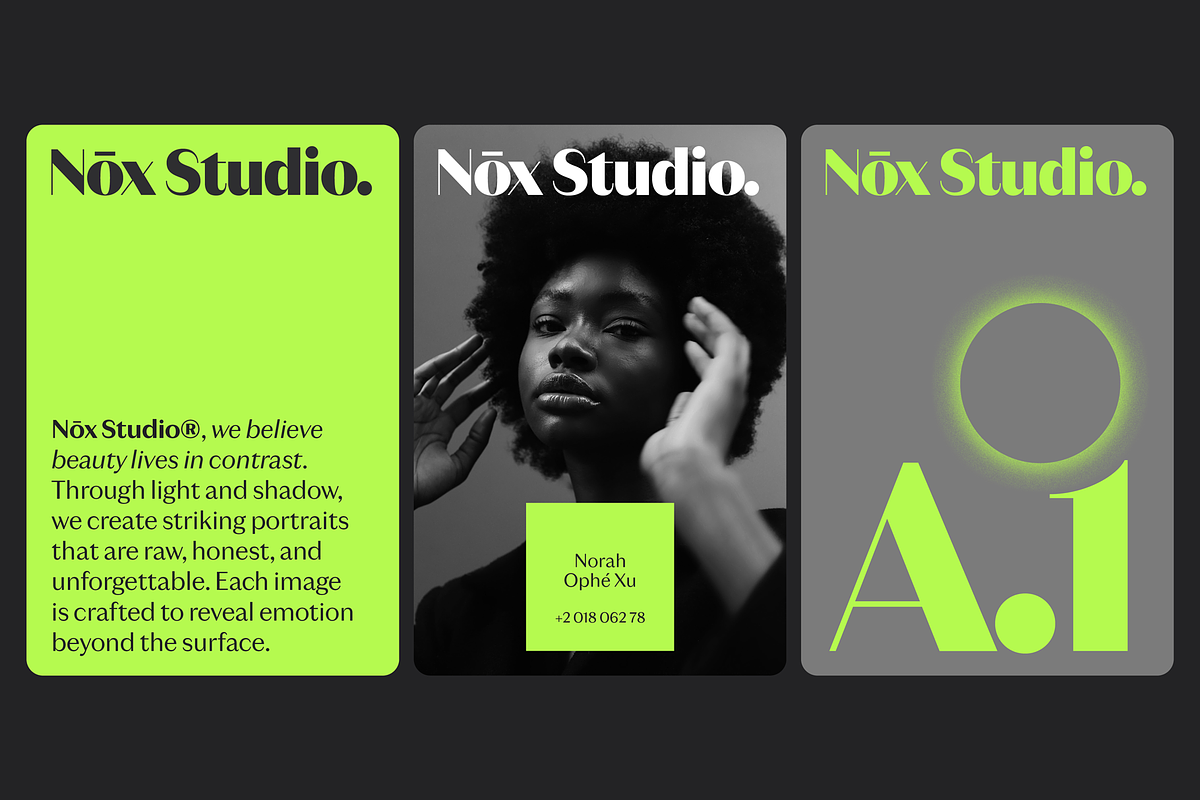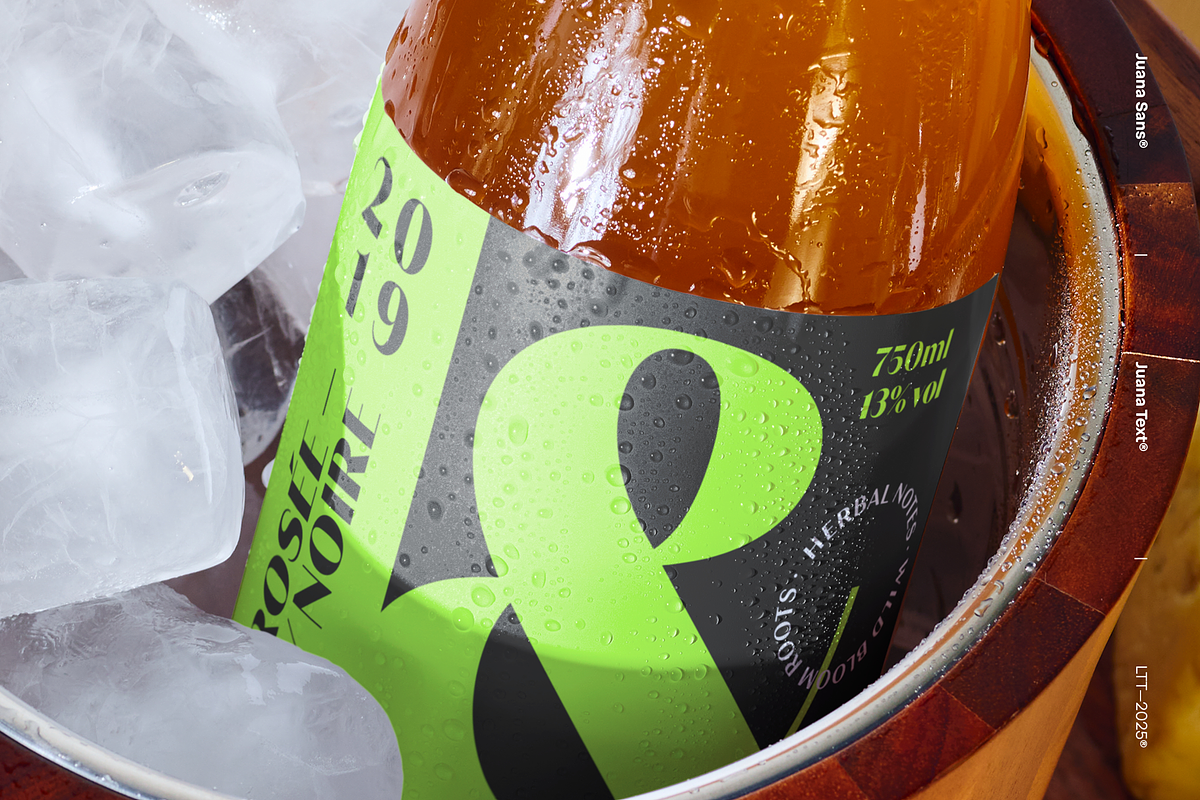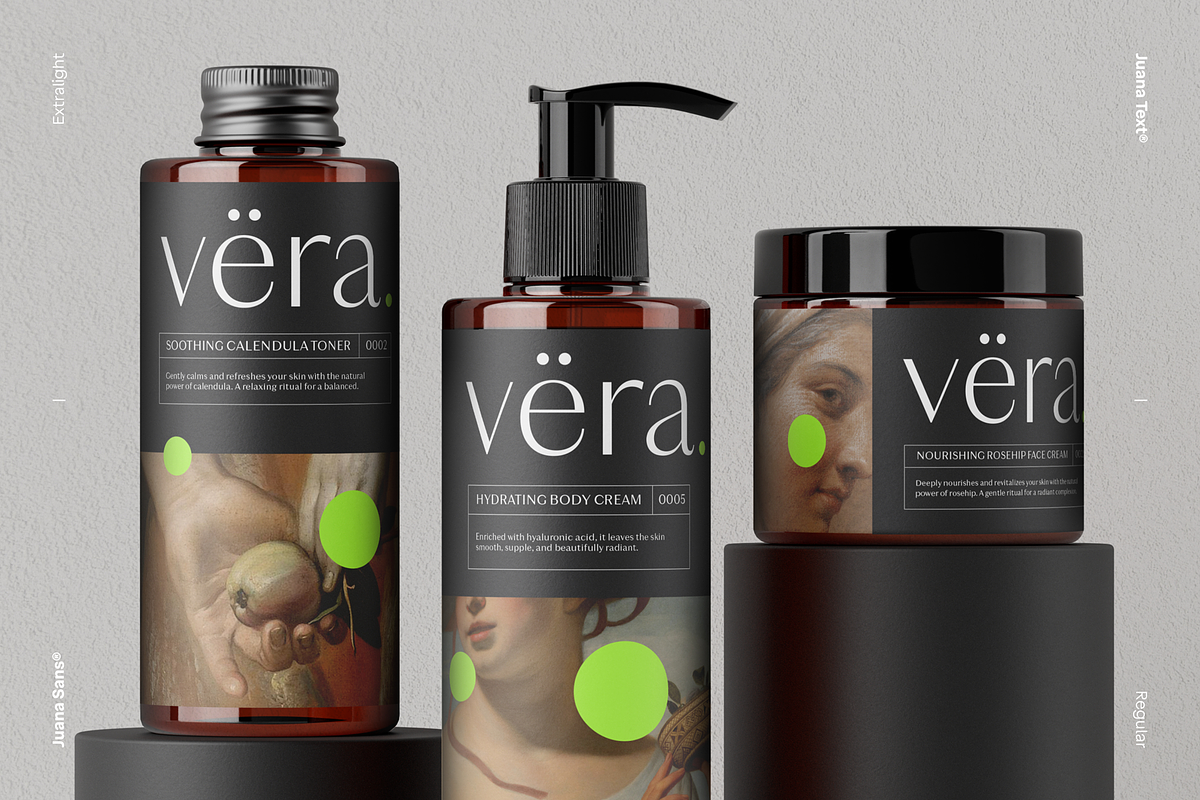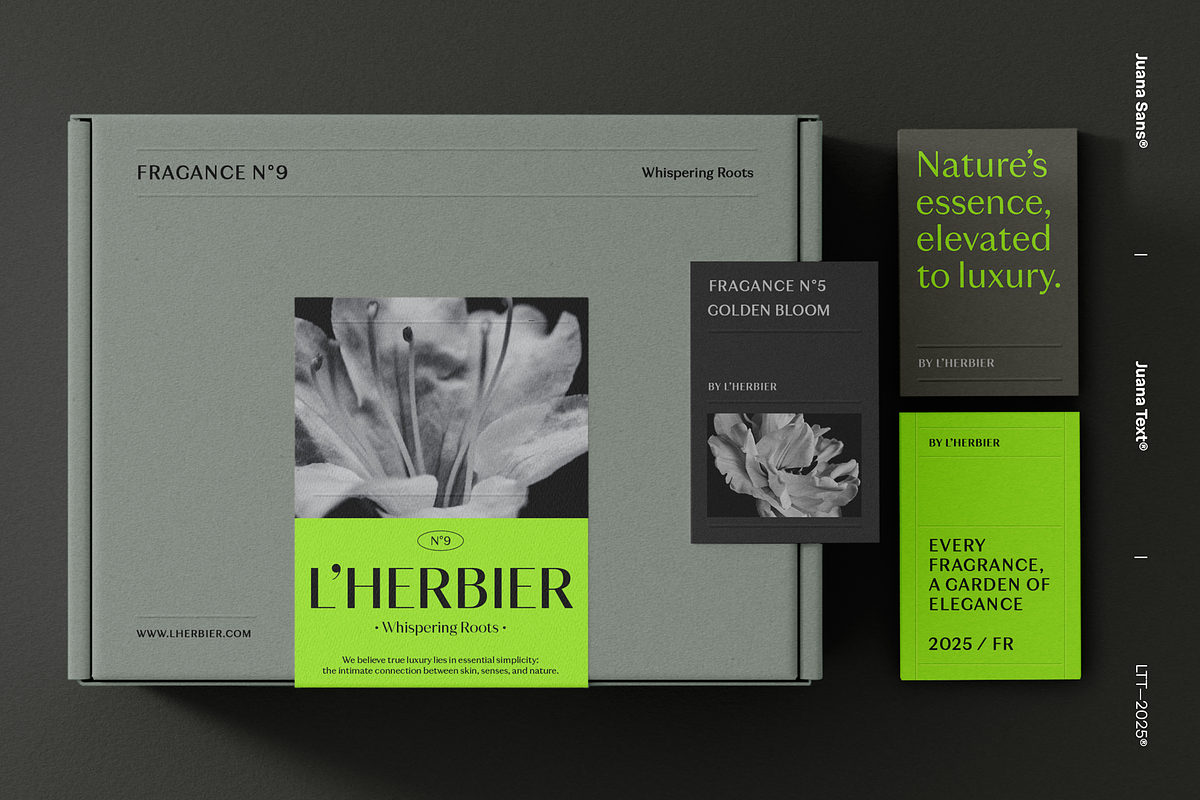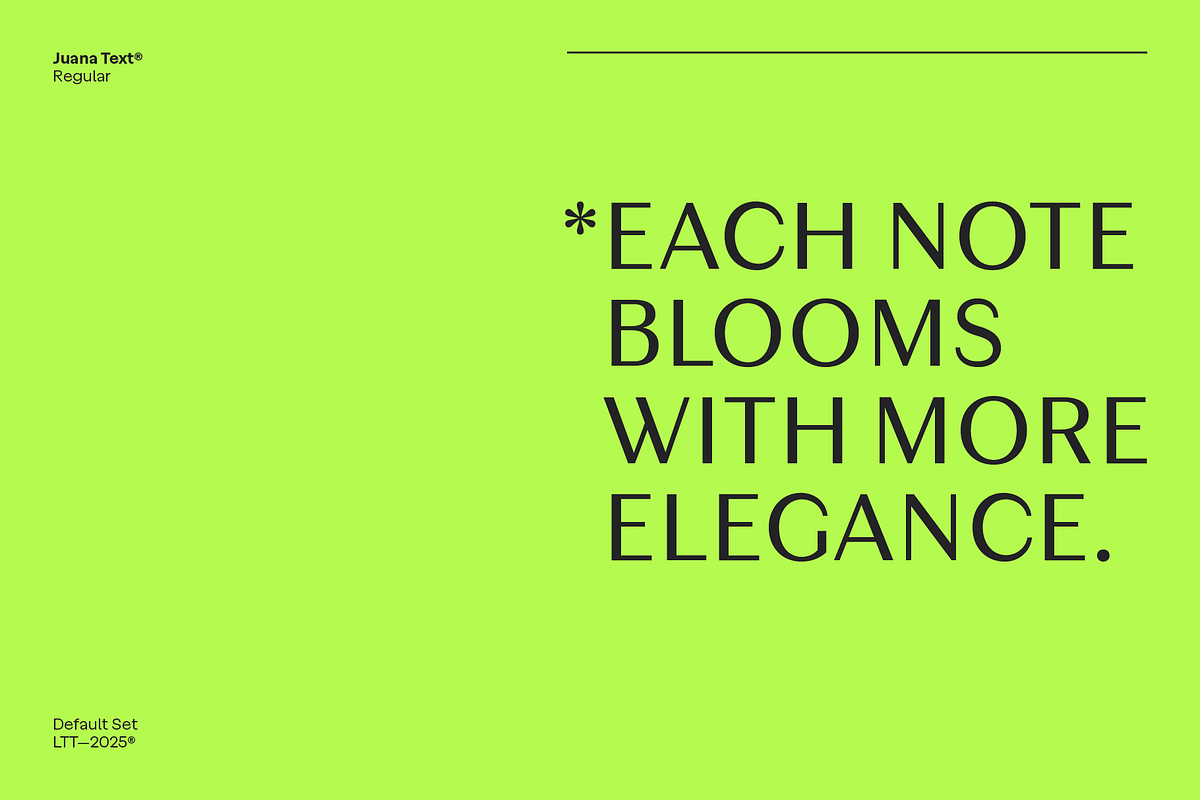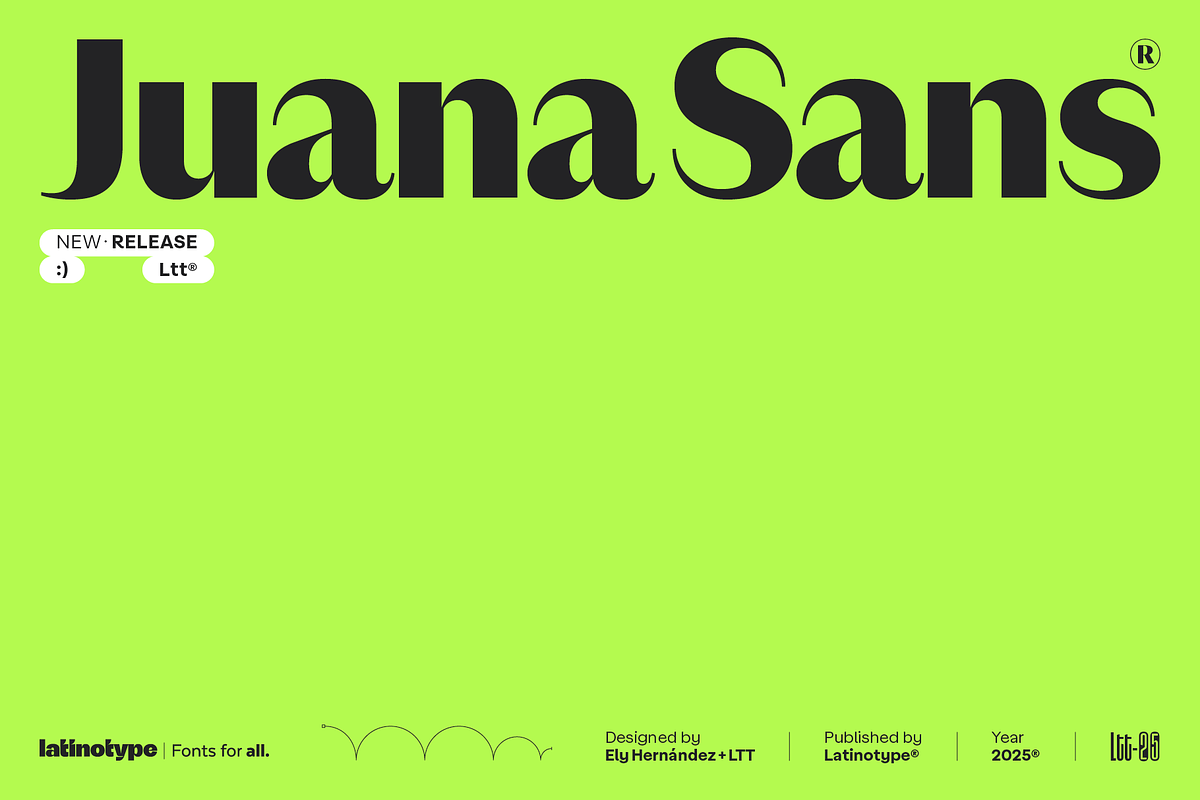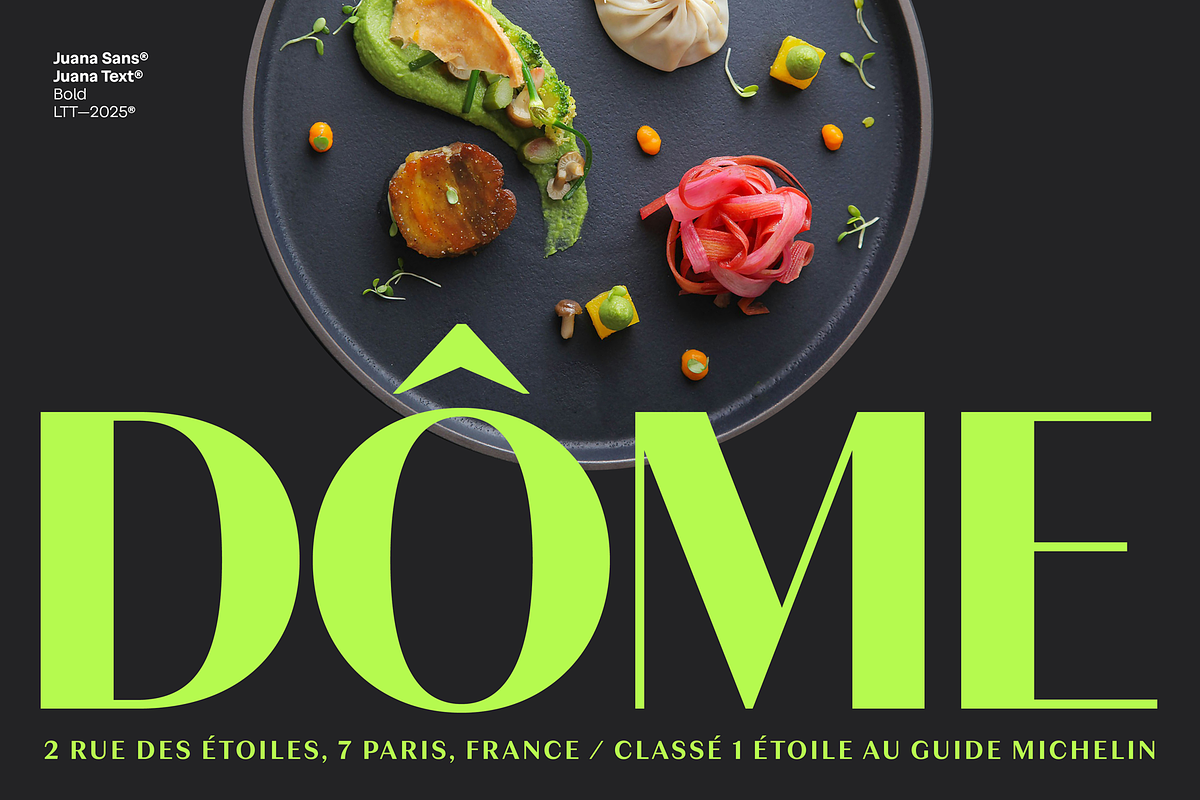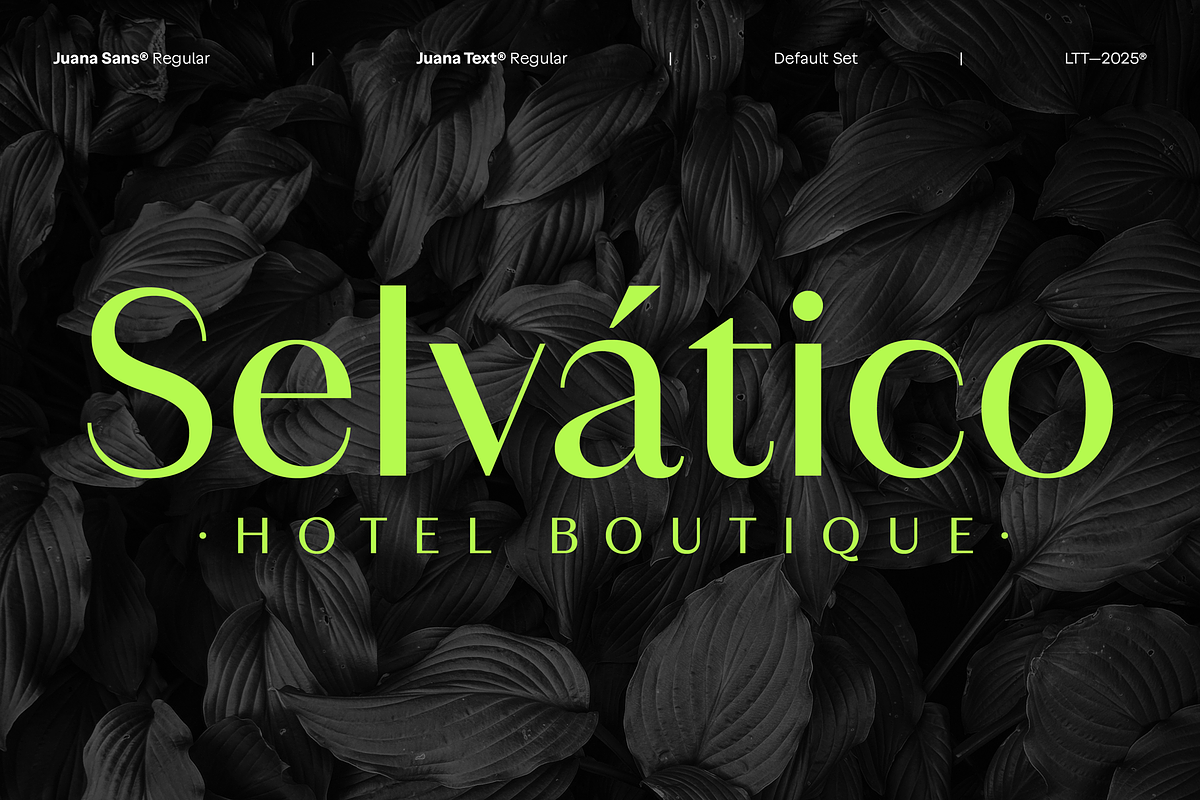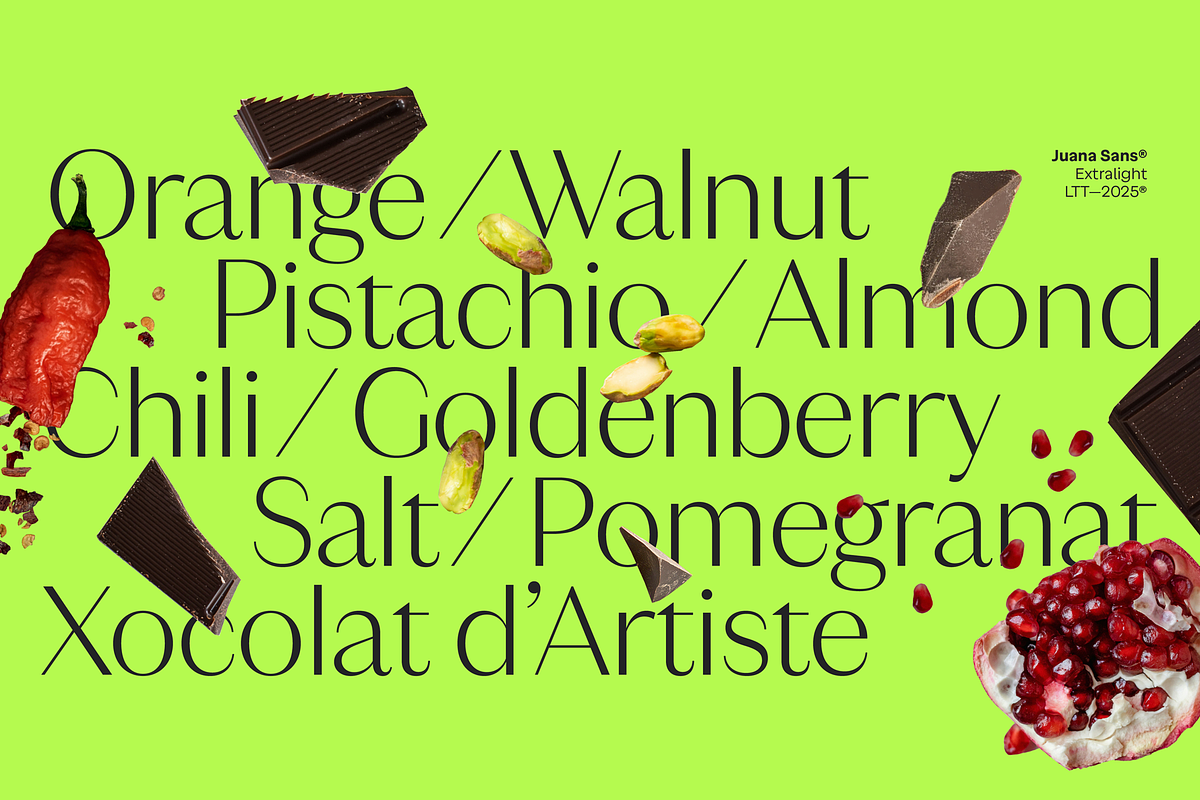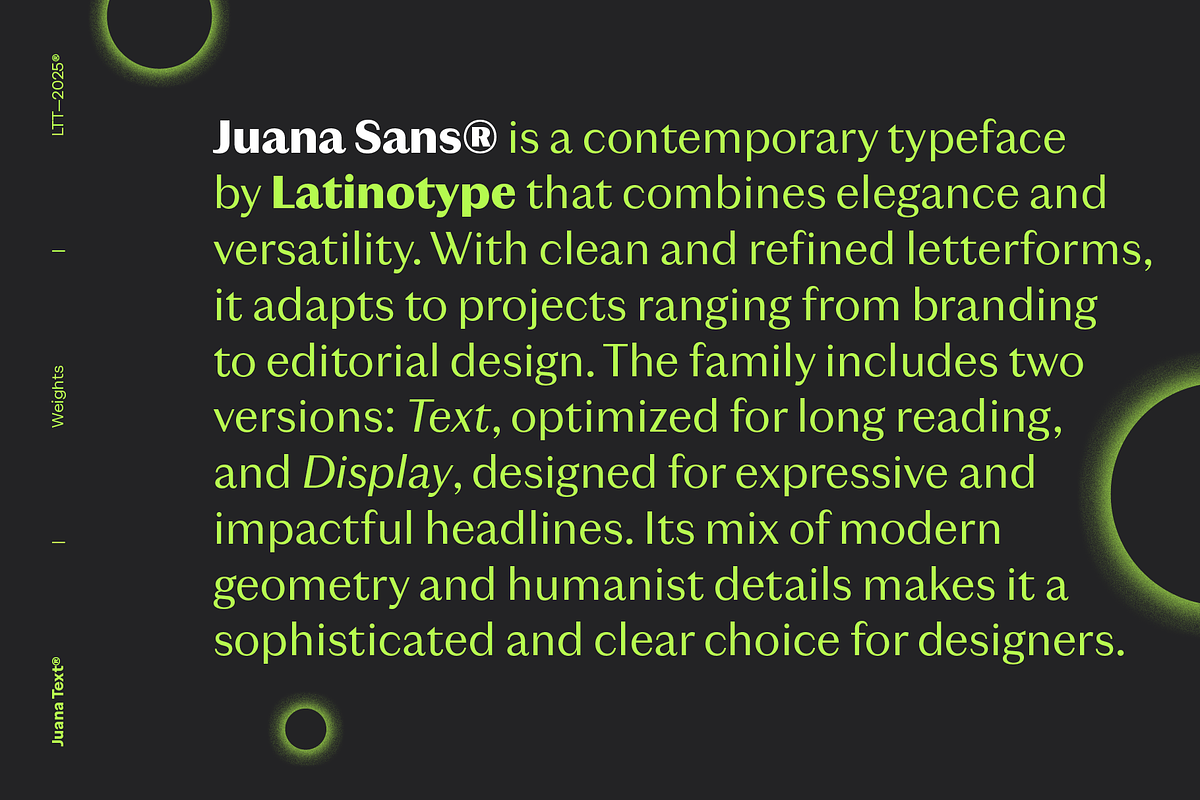
Juana Sans
Elegance and readability in a comprehensive typographic system
Ely Hernández, together with the Latinotype team, presents two new versions of Juana that expand the type family with complementary approaches.
Juana Display, with its high contrast and precise curves, is designed for titles and headlines where elegance and visual impact take center stage. Meanwhile, Juana Text softens contrast and reinforces fine strokes to provide smooth, comfortable reading in long paragraphs, while preserving the stylized, editorial character that defines the family.
Both versions naturally interact with the original Juana, forming a coherent, versatile, and contemporary typographic system that easily adapts to a wide range of visual communication needs.
Perfect for editorial projects, magazines, branding, books, and digital environments, Juana invites designers to explore the contrast and harmony between its different personalities, enhancing the expressive power of typographic design.
Juana: a system designed to explore the full editorial spectrum… and beyond.